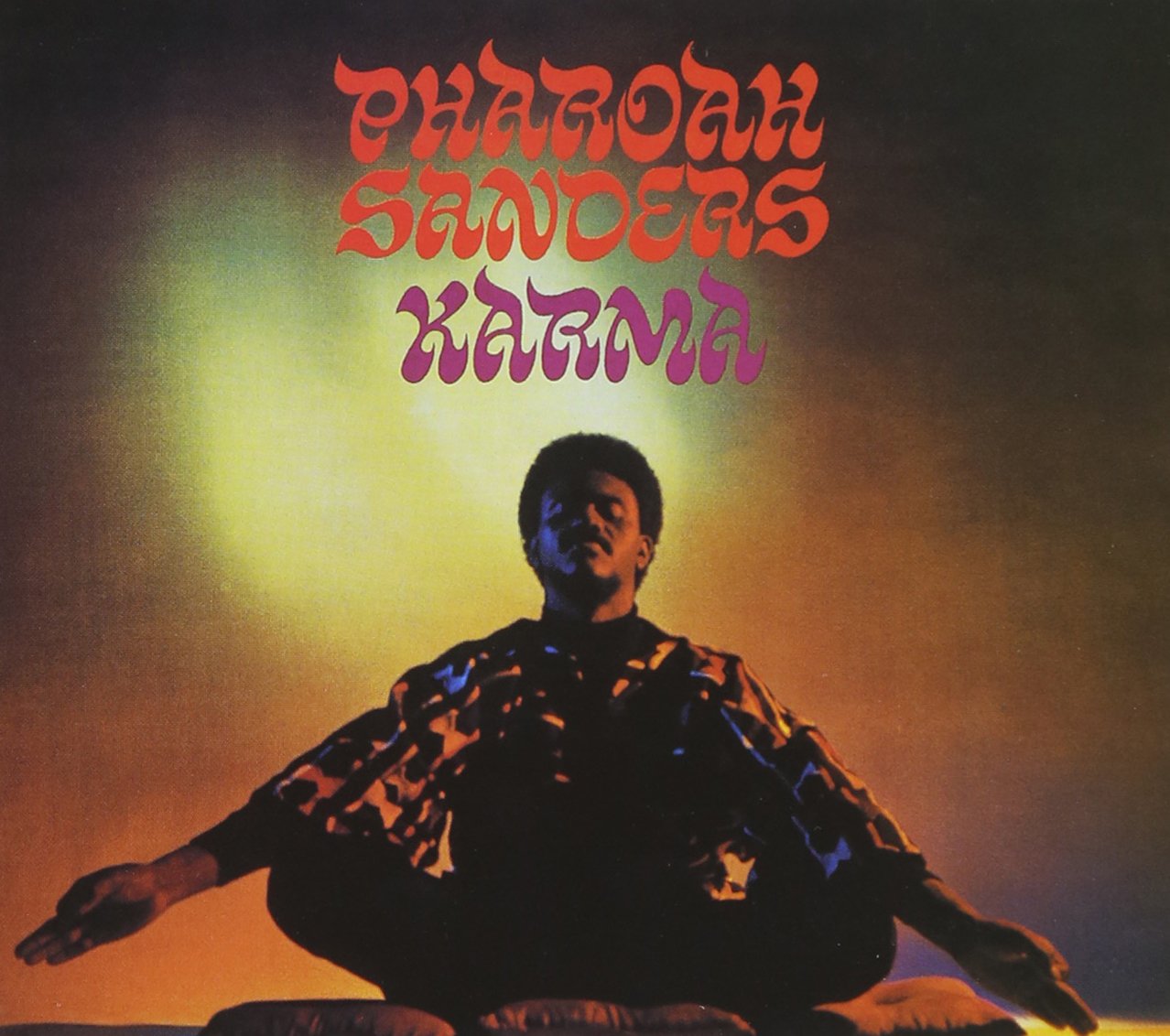
i would like to know if this is a font
This is lettering. The design is by Robert & Barbara Flynn (see credits on Discogs) who often used hand lettering on their covers.
Update! In 2021, Sam Beldsoe released Ulrich Planer’s Lazy Daisy, which appears to be directly related to this lettering, so may have been inspired by this cover (or some other historical source that may have inspired the cover).
Confirmed by Ulrich in the comments here